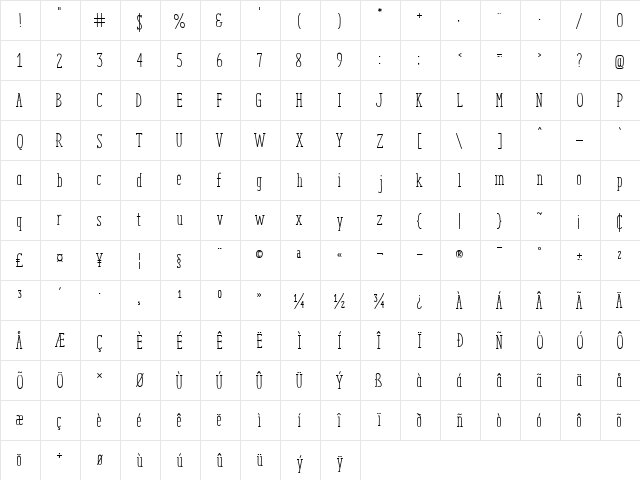
ENYO Serif Regular Regular
| Foundry | Julia Martinez Diana, Antipixel |
| Designer | Julia Martinez Diana, Antipixel |
Design Context for ENYO Serif Regular Typeface
ENYO Serif Regular brings classic typographic sensibility to the table — its serifs and measured letterforms reflect centuries of print heritage.
Pro Tip: Set ENYO Serif Regular with slightly loose tracking in headlines to let each letterform's detail read clearly at display sizes.